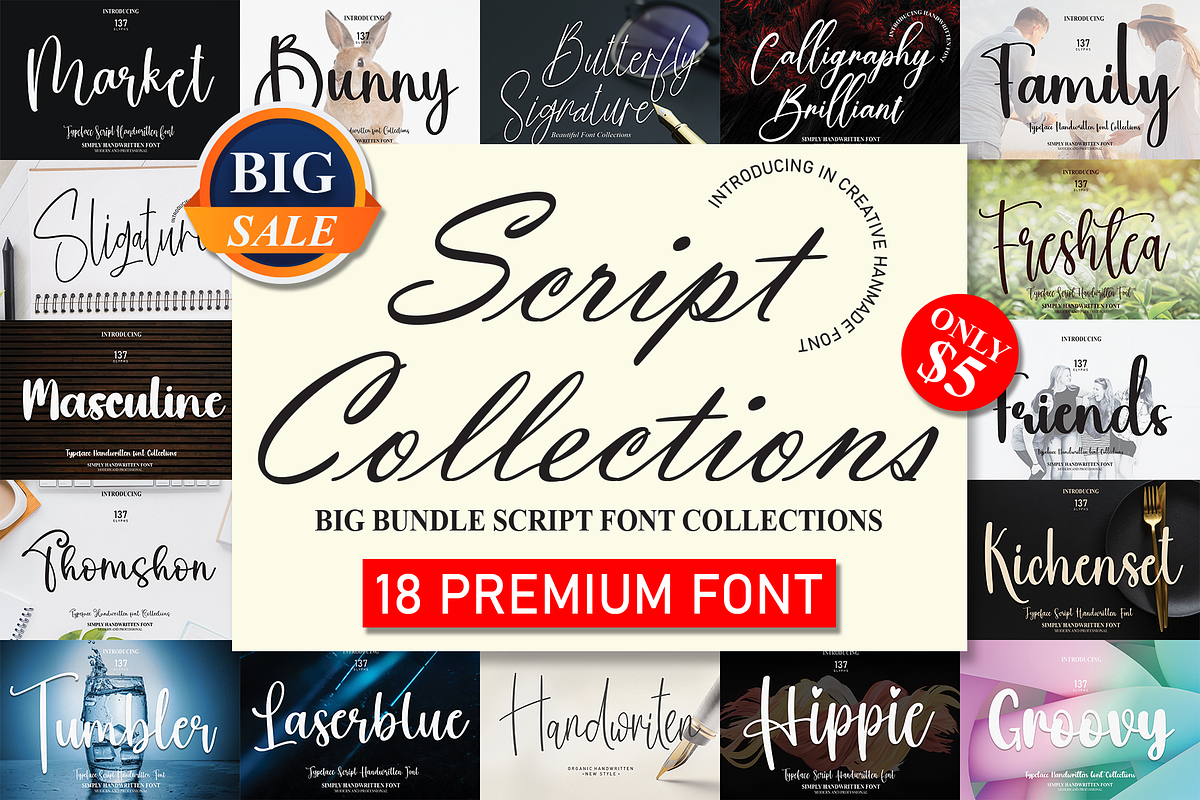
The Script Premium Collection Free Download is a sophisticated and elegant typeface bundle designed to bring a touch of luxury and refinement to your designs. With a range of beautifully crafted script fonts, this collection is perfect for wedding invitations, high-end branding, personal stationery, logos, and more. Each font in the collection offers unique, flowing letterforms that add a handcrafted, personal feel to your projects. Whether you’re designing for an upscale event or creating elegant marketing materials, The Script Premium Collection Free Download lets you explore its stylish fonts in personal projects before purchasing a commercial license. Elevate your designs with the timeless beauty and elegance of this premium script collection.